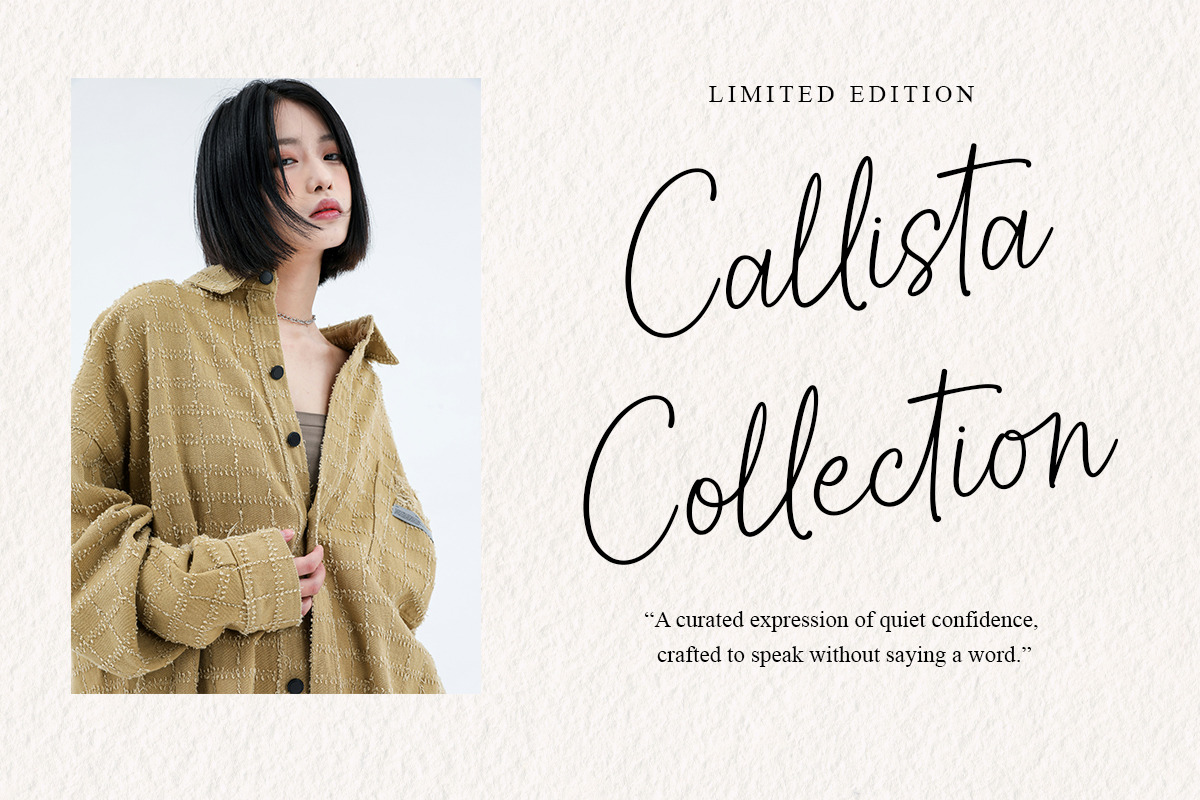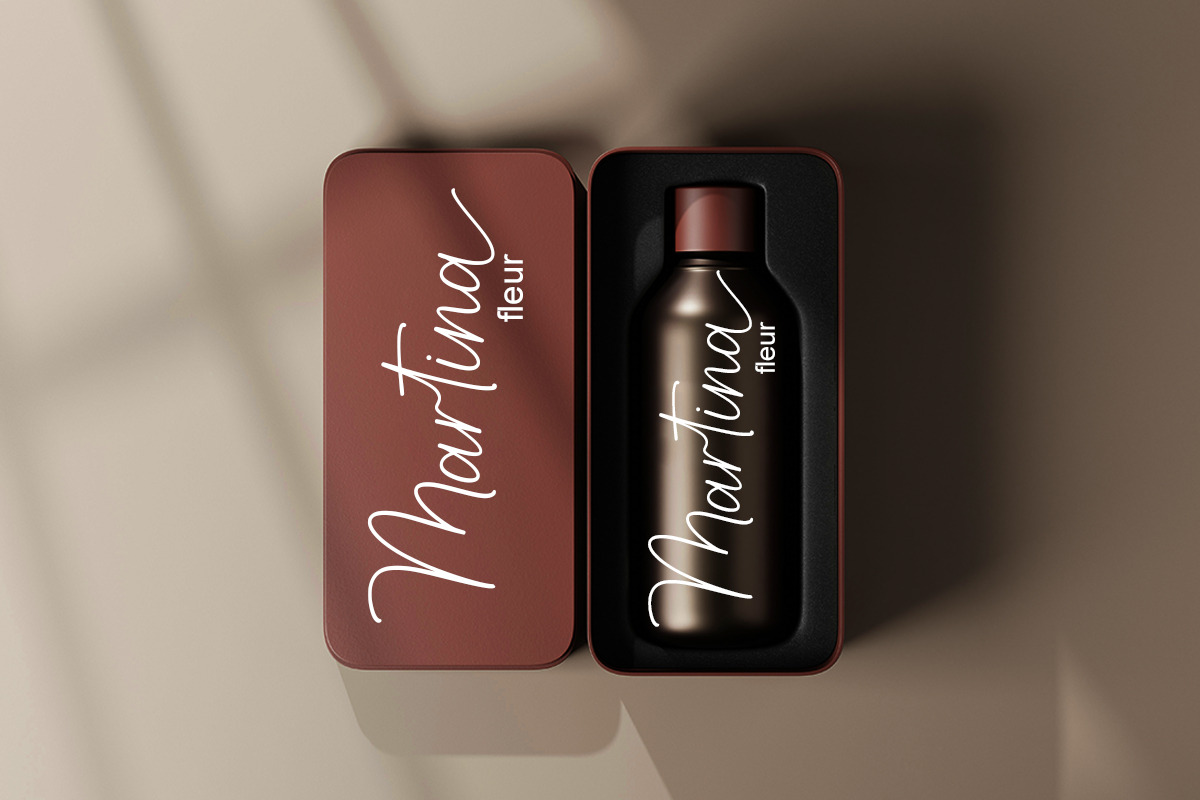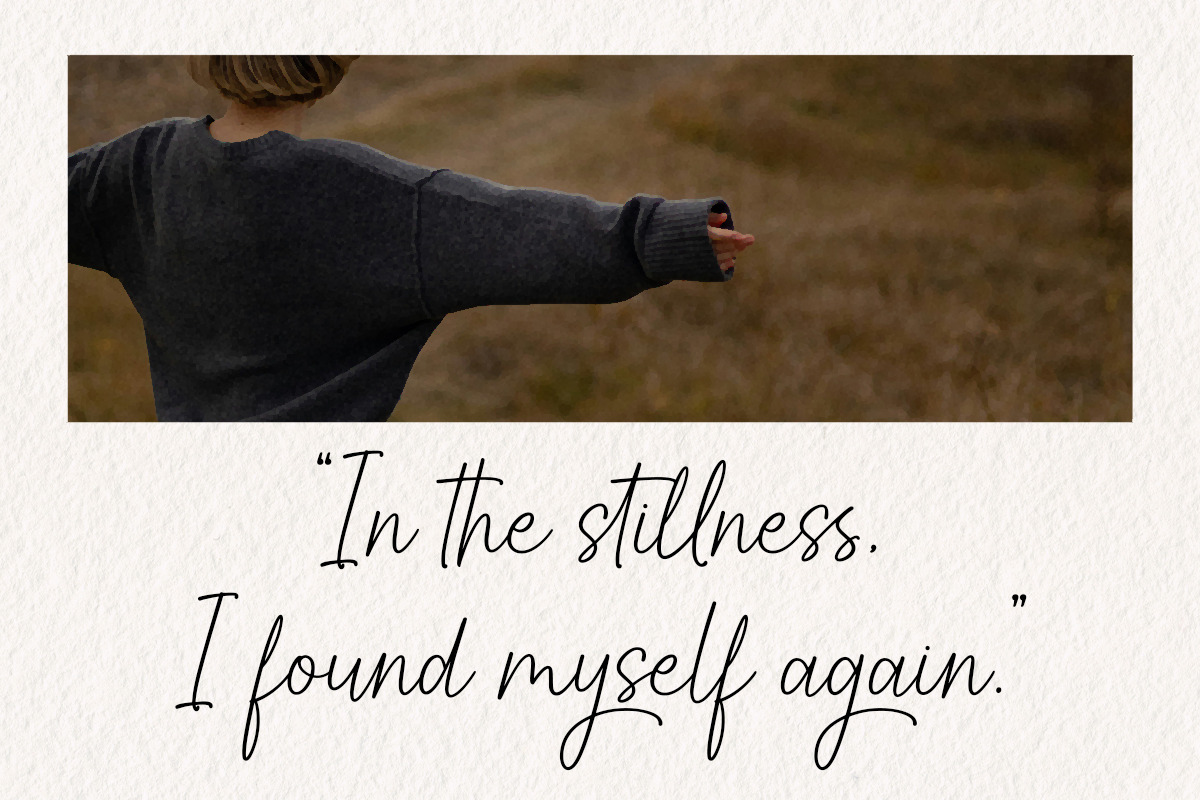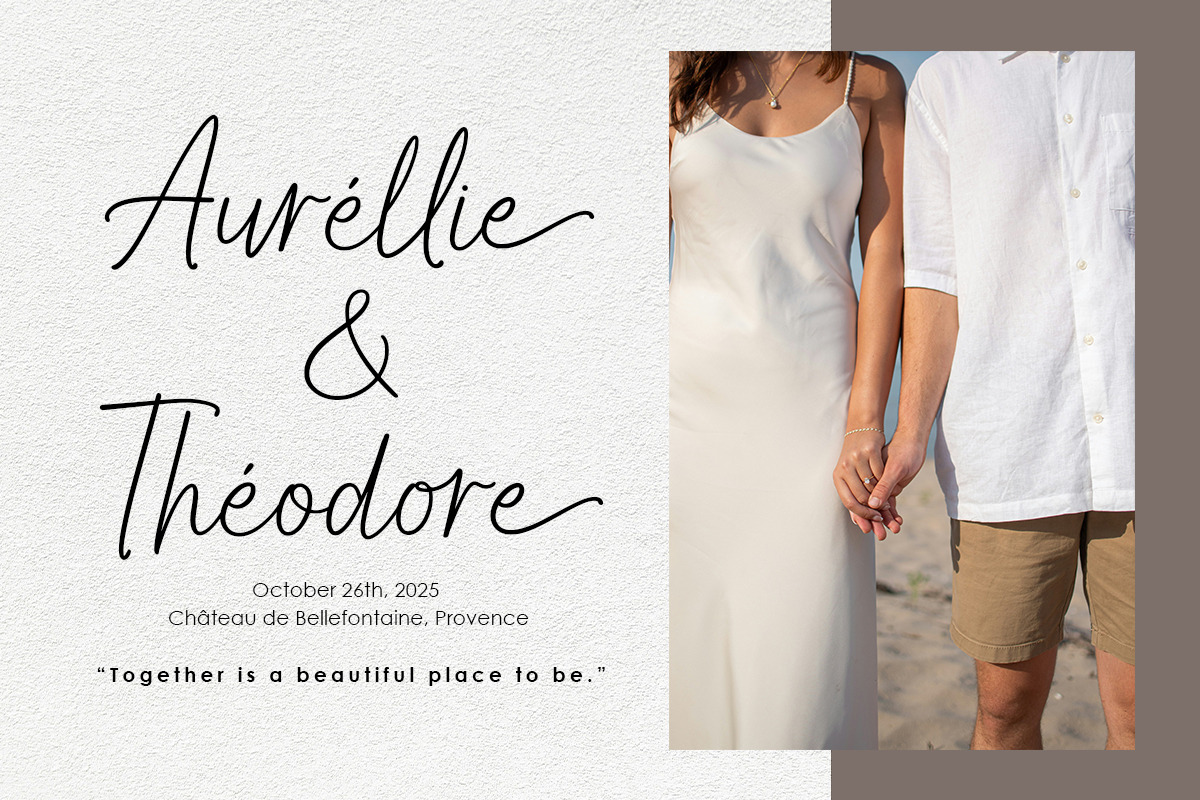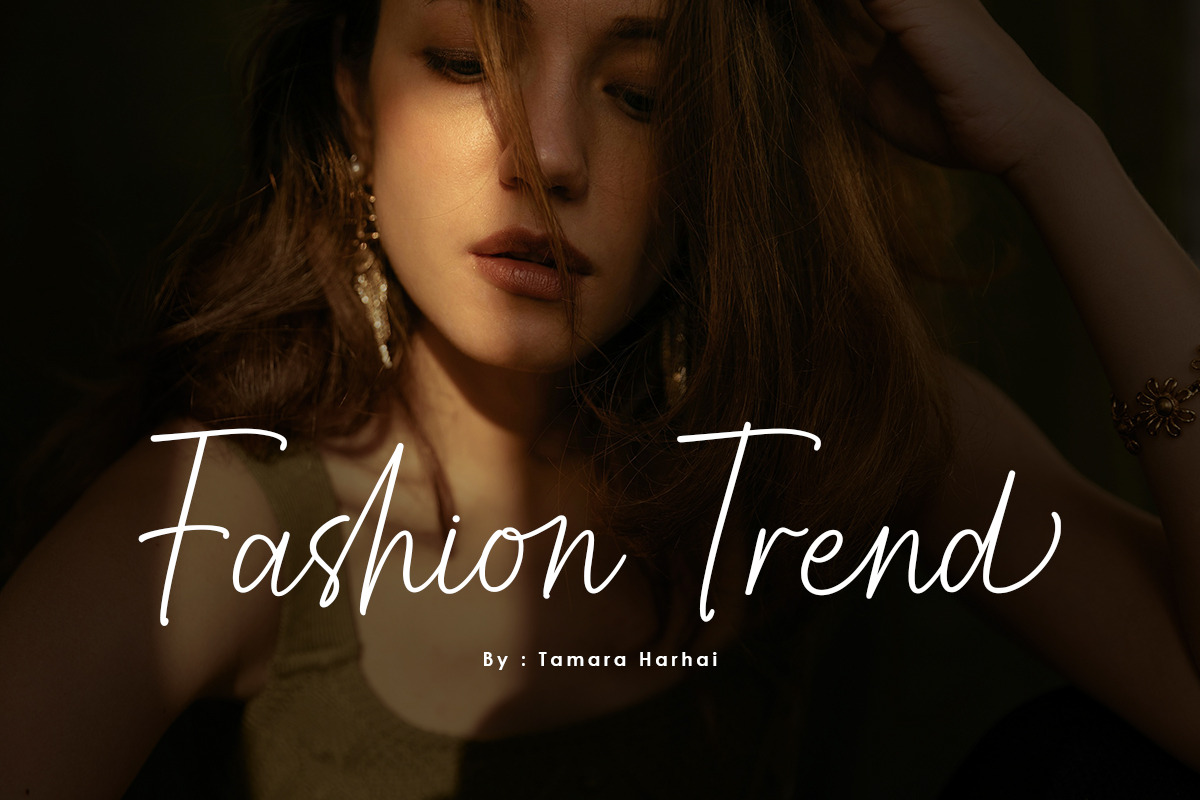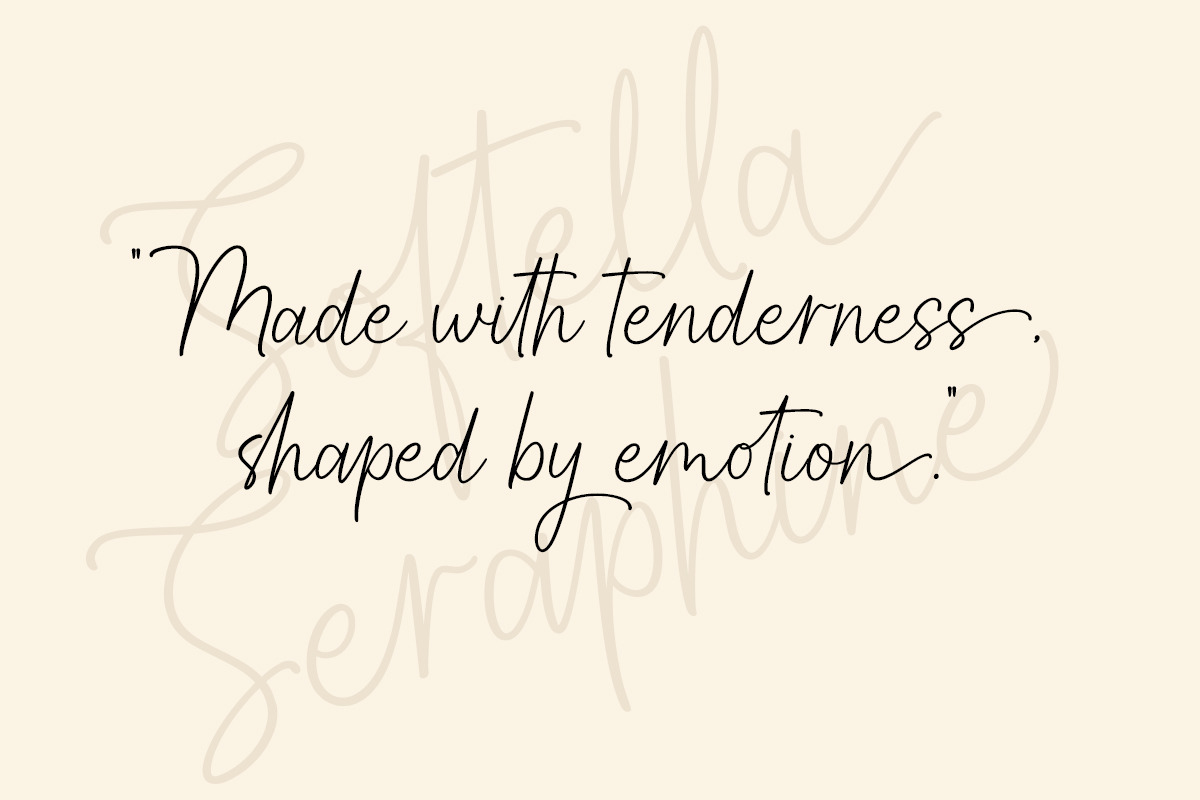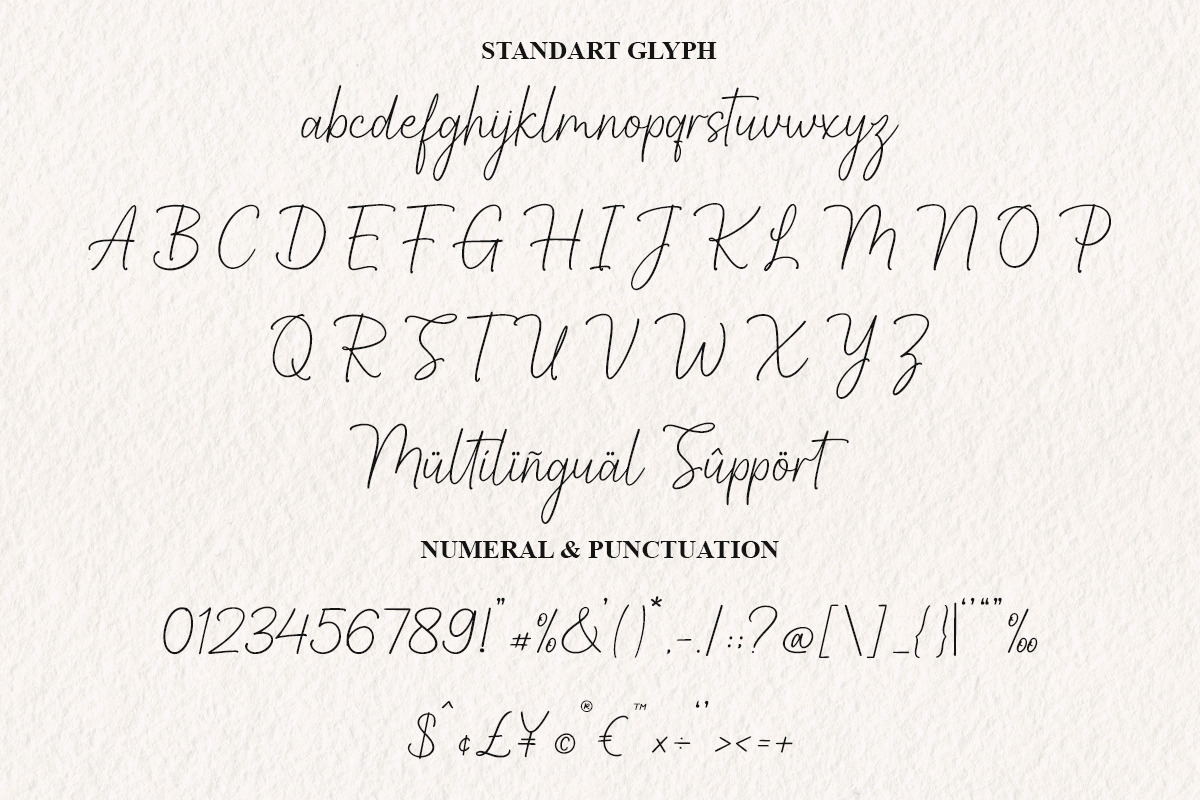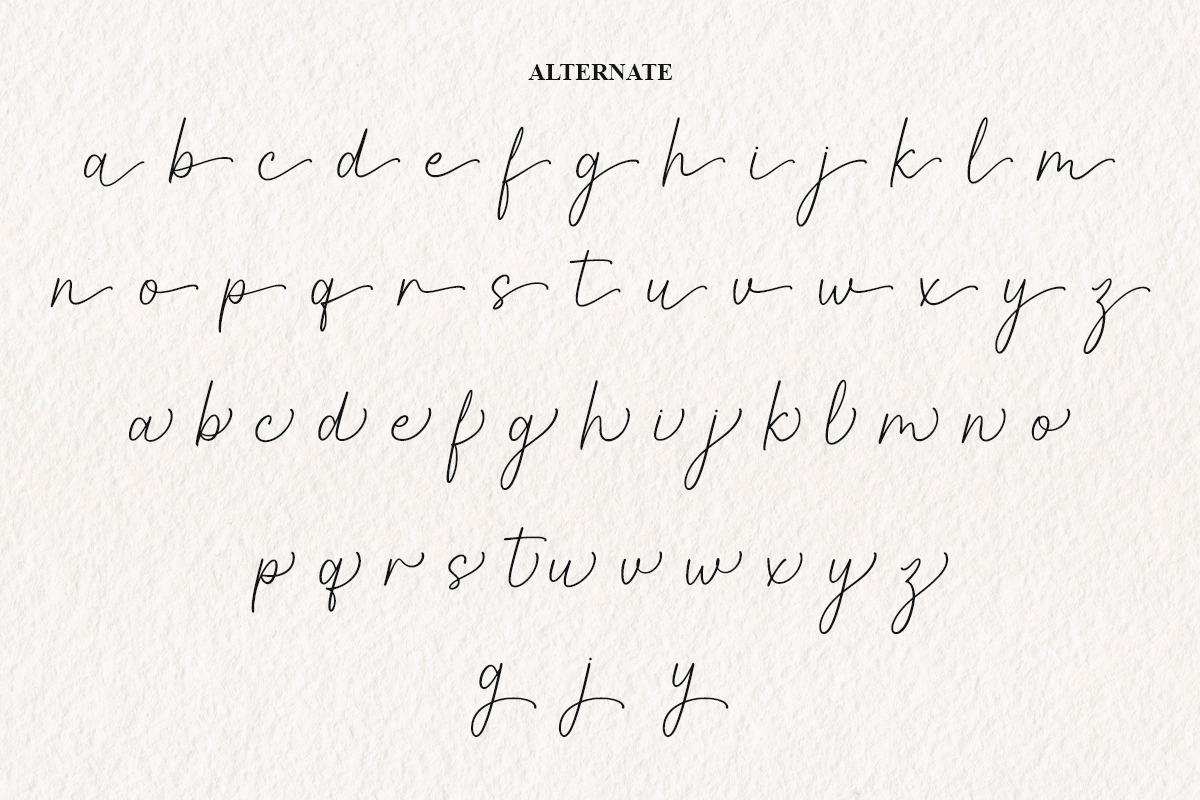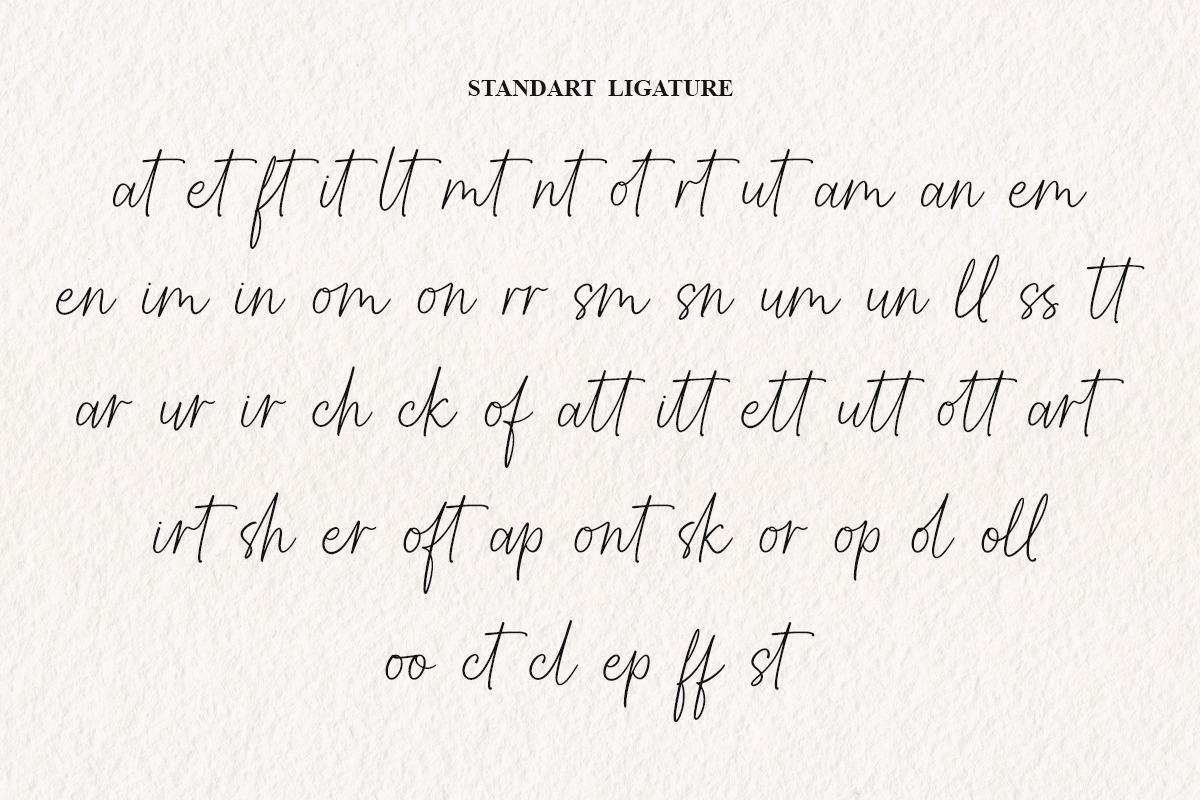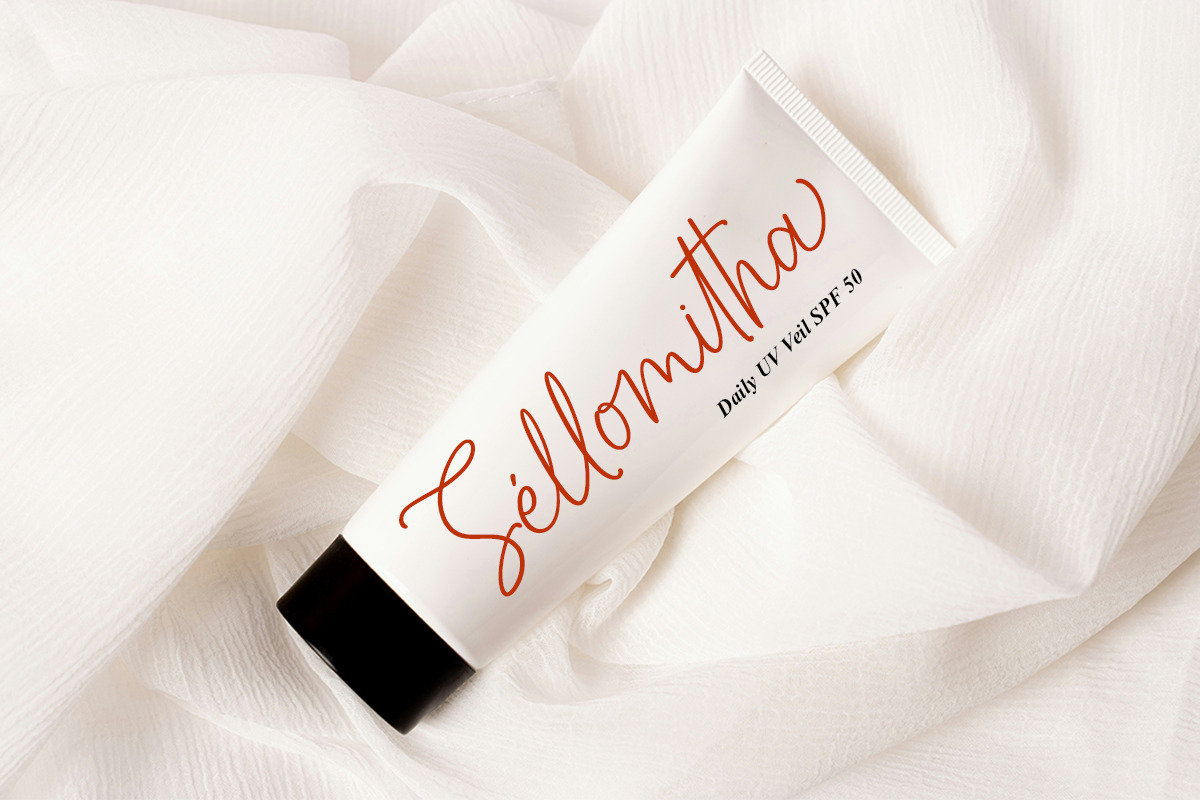
Softella Seraphine
Softella Seraphine is a gracefully handcrafted script font that captures the beauty of natural handwriting with a soft, flowing rhythm. Featuring elegant ligatures and charming alternates, this font is perfect for branding, wedding invitations, social media posts, product packaging, and any design that needs a touch of heartfelt sophistication.
Designed with love and intention, every stroke of Softella Seraphine was created to express emotion and elegance — making your message feel personal and authentic.